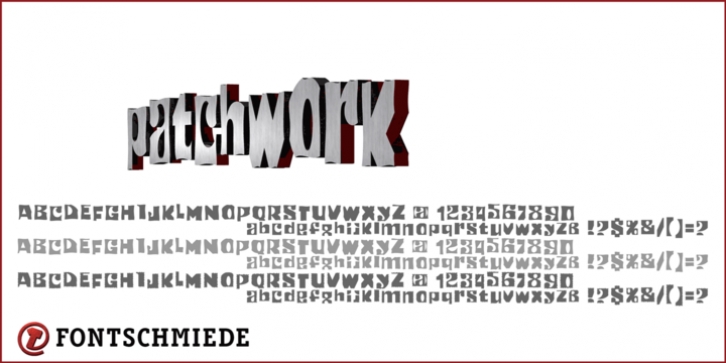
Patchwork downloadDesigner: Frank Baranowski
Publisher: Fontschmiede
The perfect font for those who hate wasting space: Patchwork offers characters in minimal cut-off shapes.
Use the different styles for experimental type experiences.